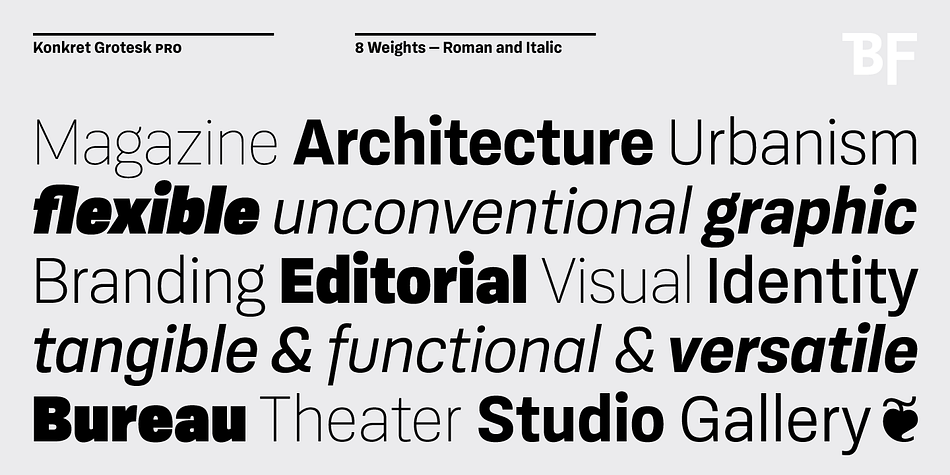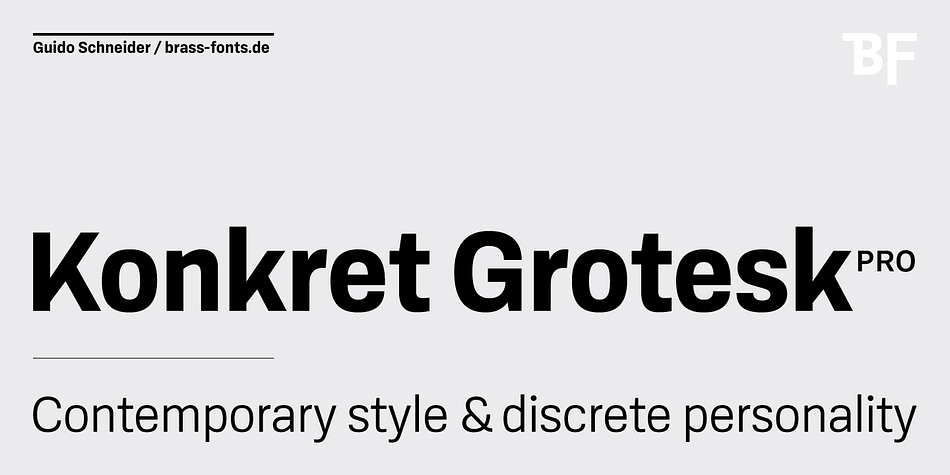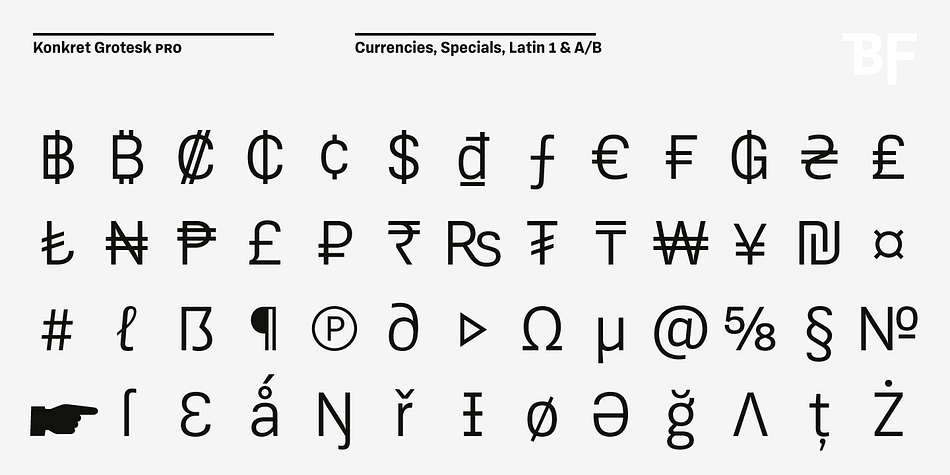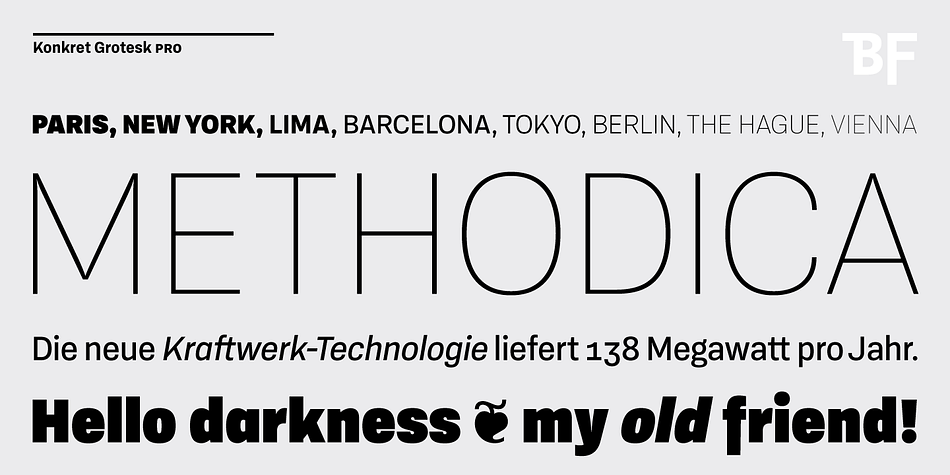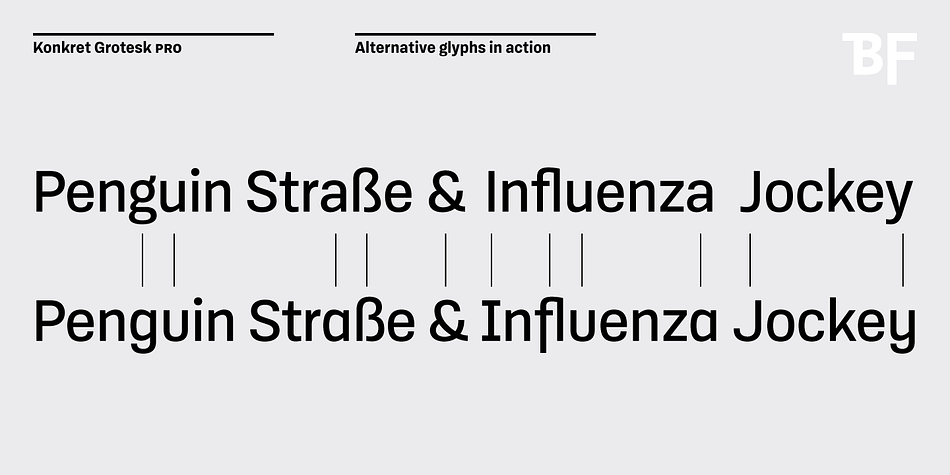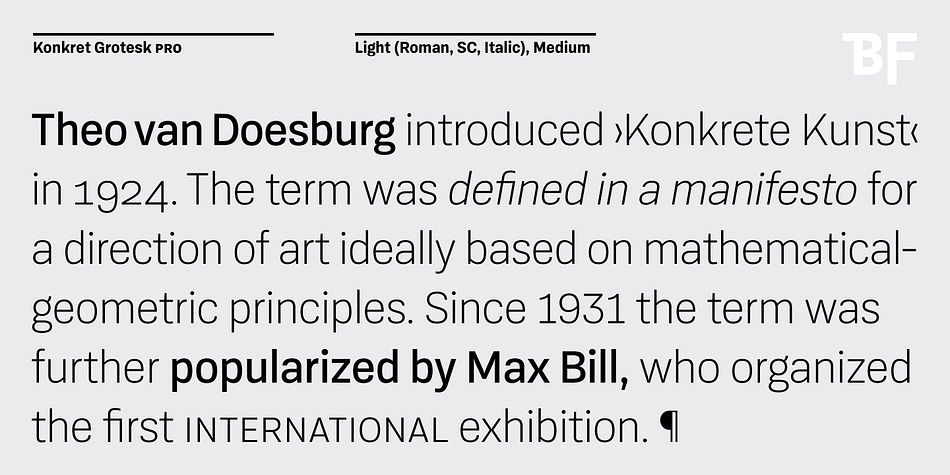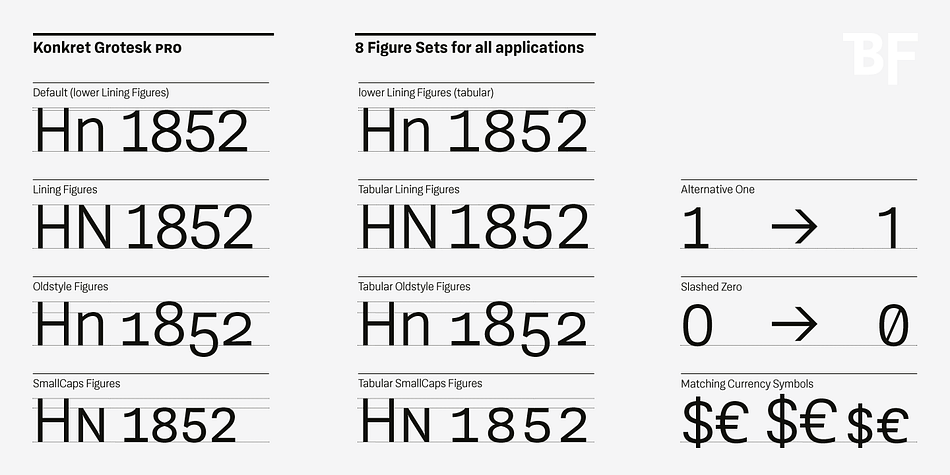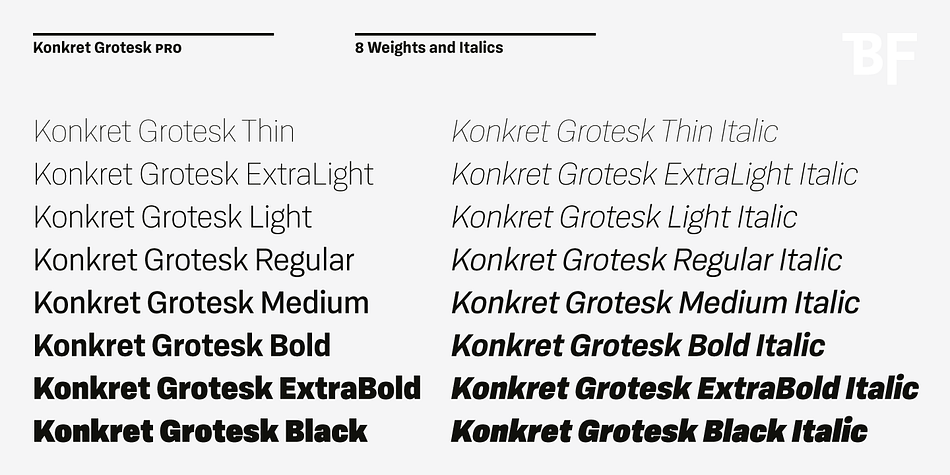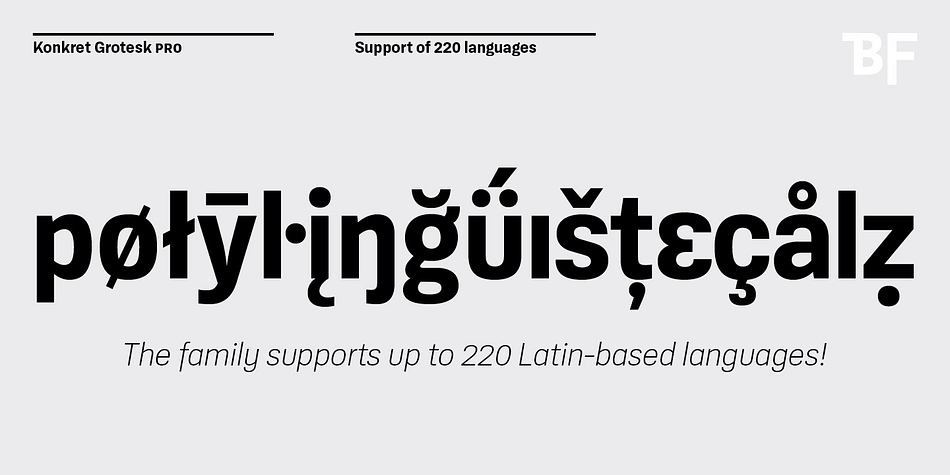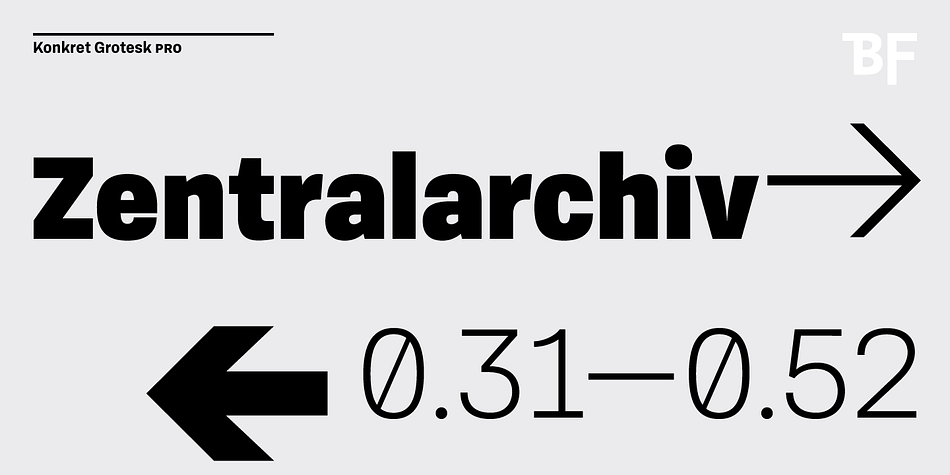
Designed by Guido Schneider, BF Konkret Grotesk Pro is a sans serif font family. This typeface has sixteen styles and was published by BrassFonts.
BF Konkret Grotesk Pro, designed by Guido Schneider, is a contemporary grotesque with a straightforward style – but a very individual touch. Inspired by classic grotesque typefaces, Konkret Grotesk Pro impresses with its unique character and rhythm: It’s elegant and edgy, flexible and forceful.
The Pro family supports up to 220 Latin-based languages. Each of the 16 fonts contains more than 1500 glyphs, including small caps, 7 figure sets, fractions, many ligatures, currency symbols, alternates, special characters and other useful symbols. 11 style sets give you the option to individualize and adjust the typeface to the requirement of your design, without changing the general visual feeling. In this way you can also switch the simply slanted styled Italic into a “real Italic”.
BF Konkret Grotesk Pro is a typeface family that can adapt to many requirements without losing its character and expression.
The range of 8 weights provides all possibilities. Due to the lovingly designed details, Konkret Grotesk Pro works both in small sizes as well as in display applications. Thus, Konkret Grotesk Pro is ideally suited for contemporary and demanding typographic tasks, both in the fields of editorial design, branding, posters and advertising.
(The new Pro edition is the extended and optimized version of the previous BF Konkret Grotesk.)